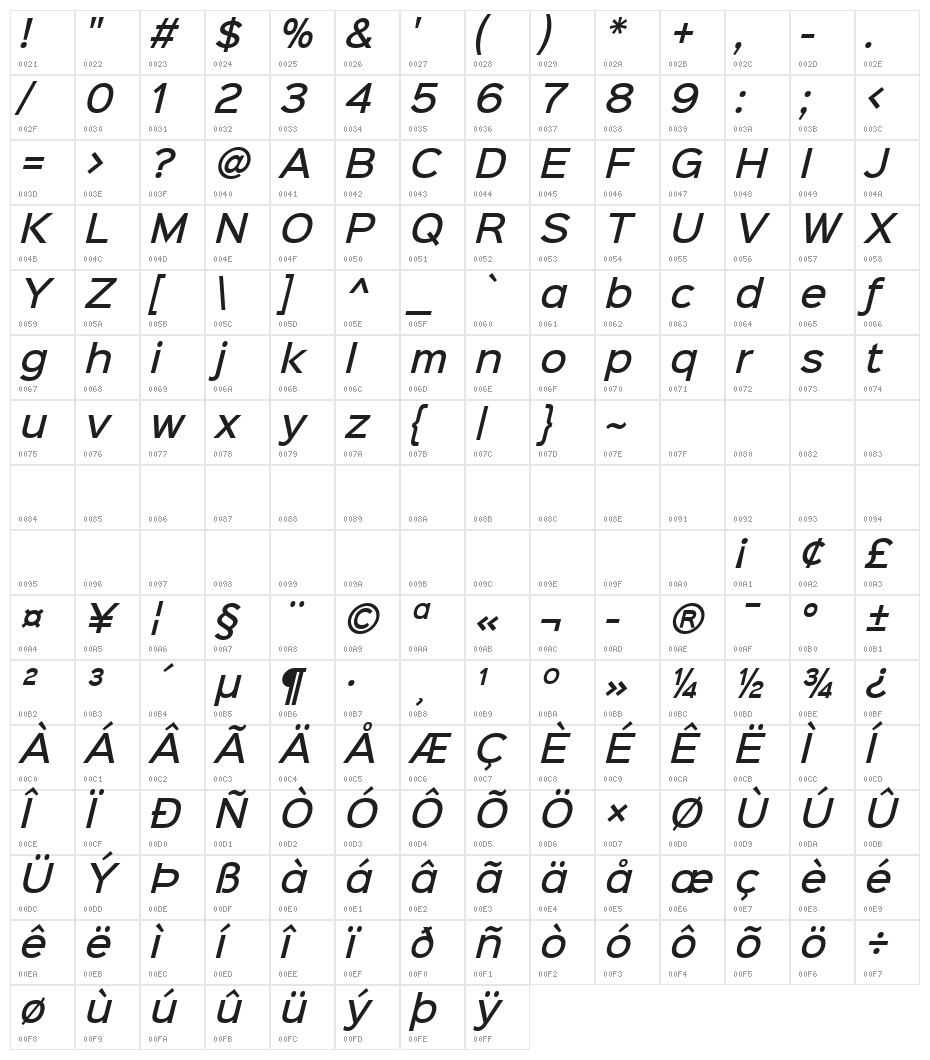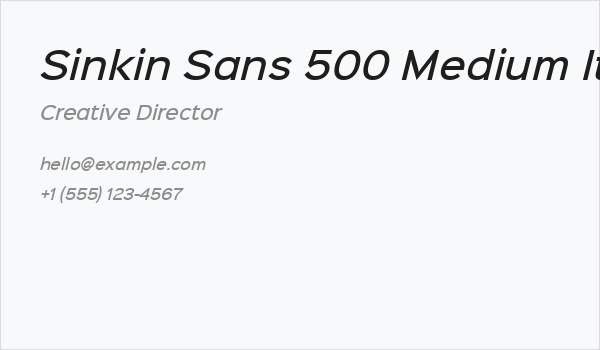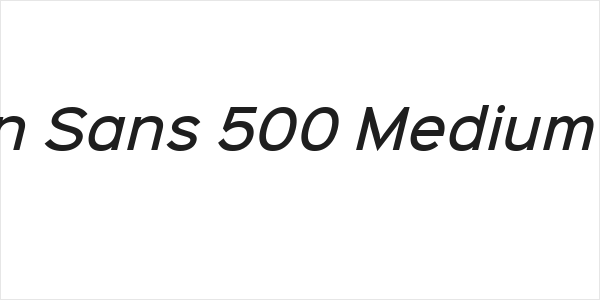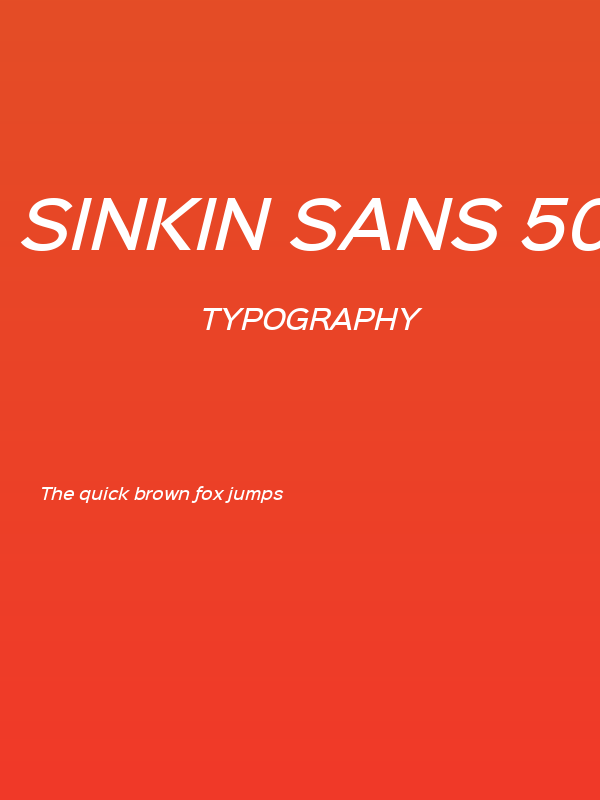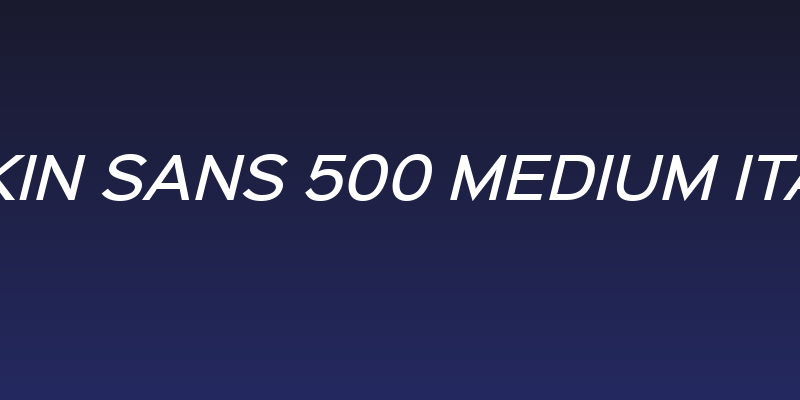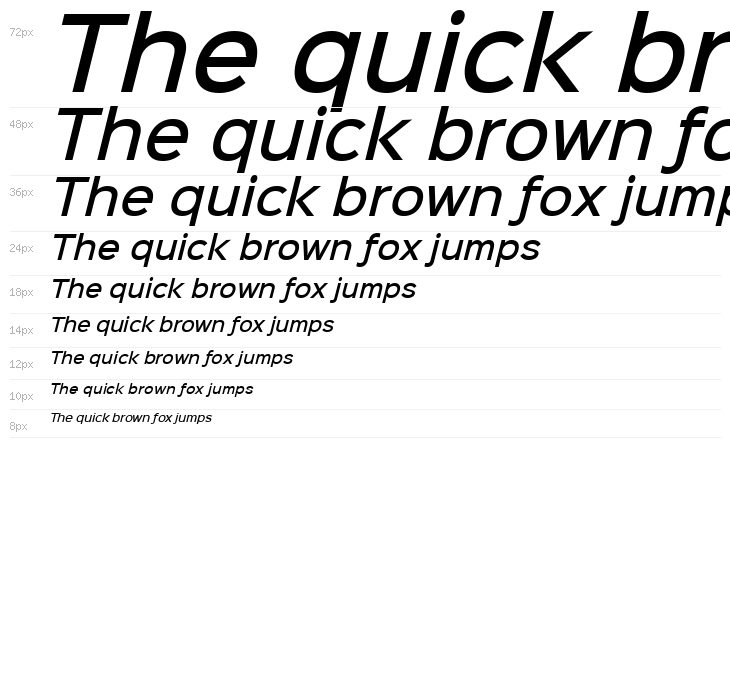
Sinkin Sans 500 Medium Italic Font
Sinkin Sans 500 Medium Italic Description
This font features a clean and modern sans-serif style with a subtle italic slant, giving it a dynamic and contemporary appearance. The characters are well-proportioned, with smooth curves and straight lines that create a harmonious balance. The medium weight provides a solid presence without being too bold, making it versatile for various design applications. The spacing between characters is normal, ensuring readability while maintaining a sleek look. The font's overall style is modern, making it suitable for projects that require a fresh and professional aesthetic.
| Proposed Projects | Ideal for branding, advertising, web design, and editorial layouts where a modern and professional look is desired. |